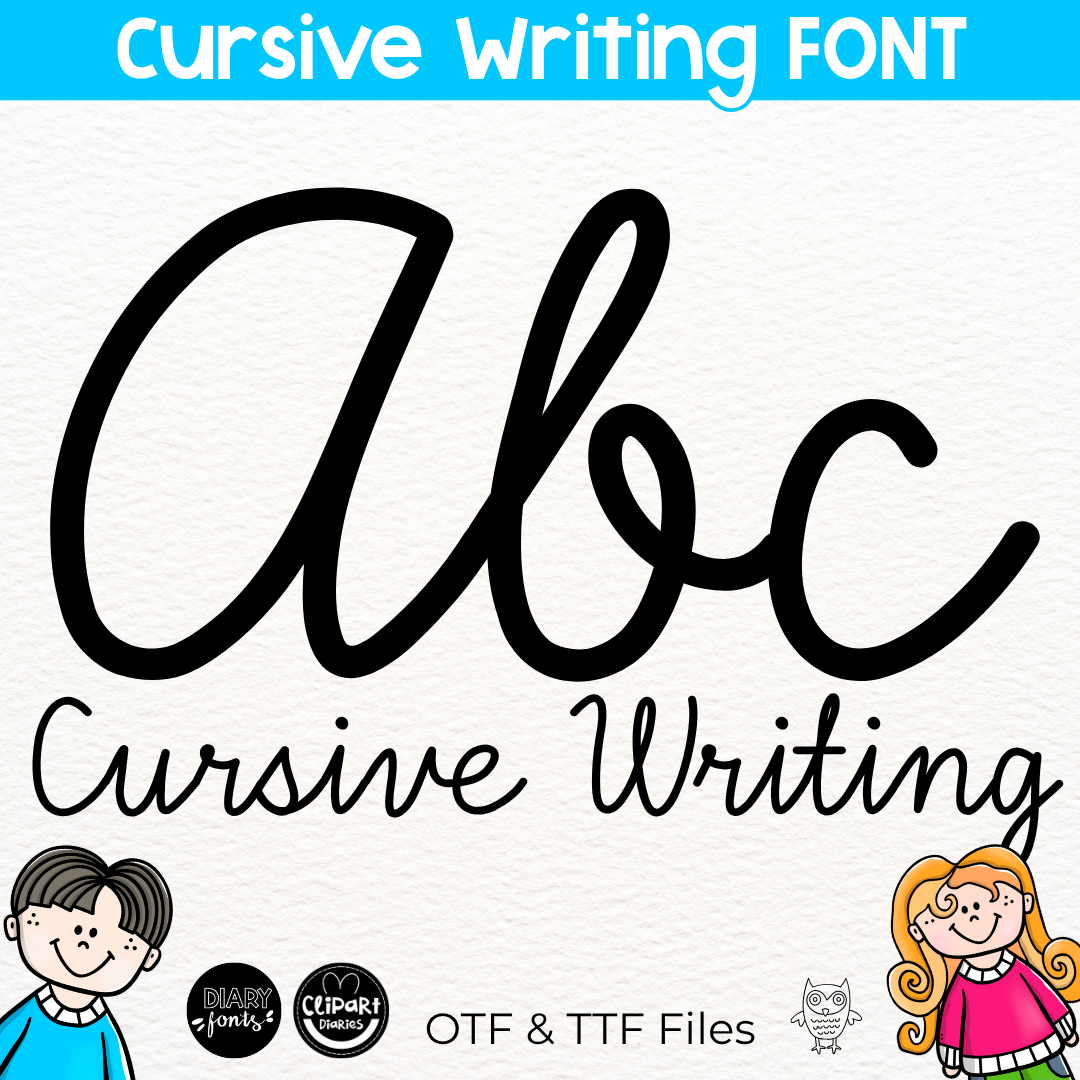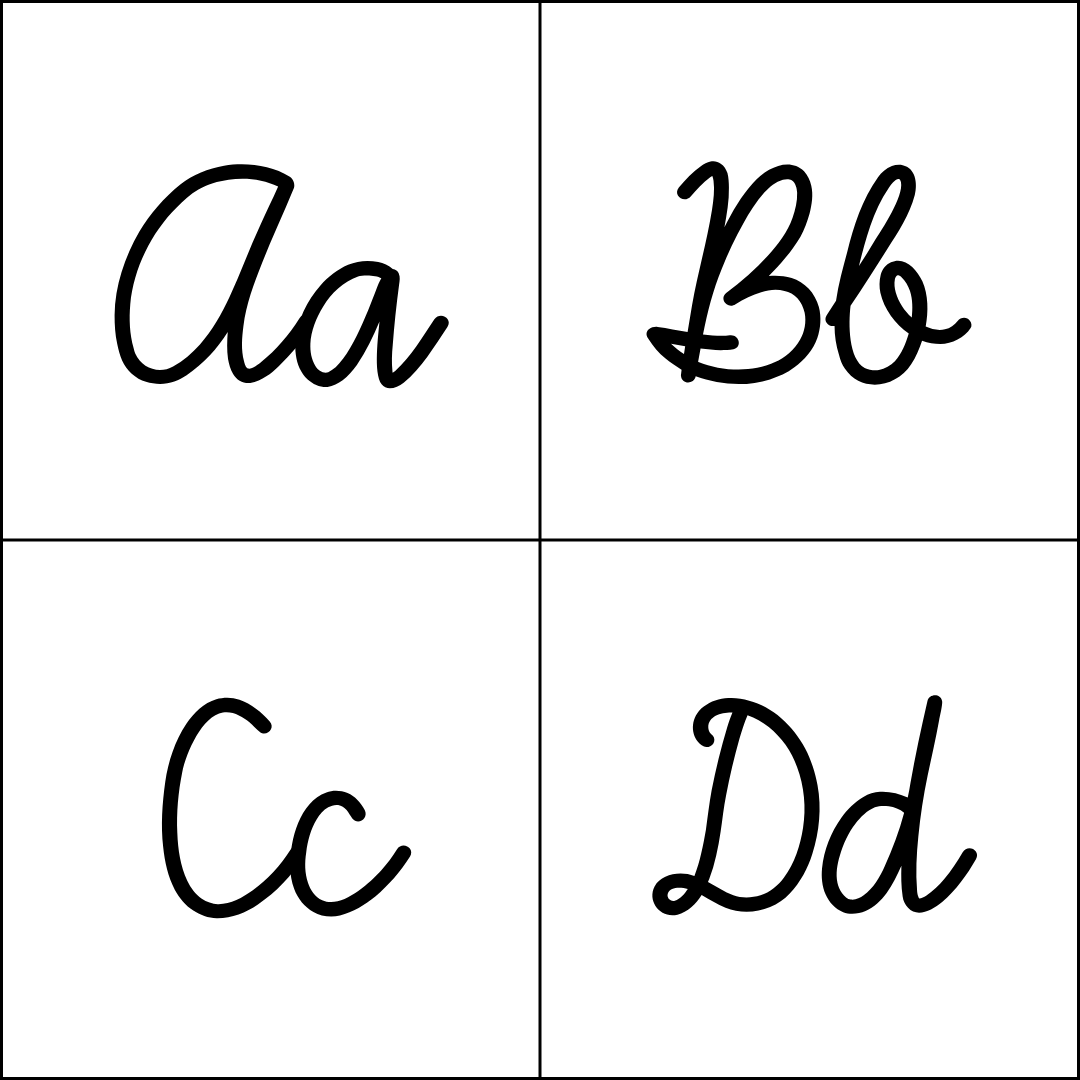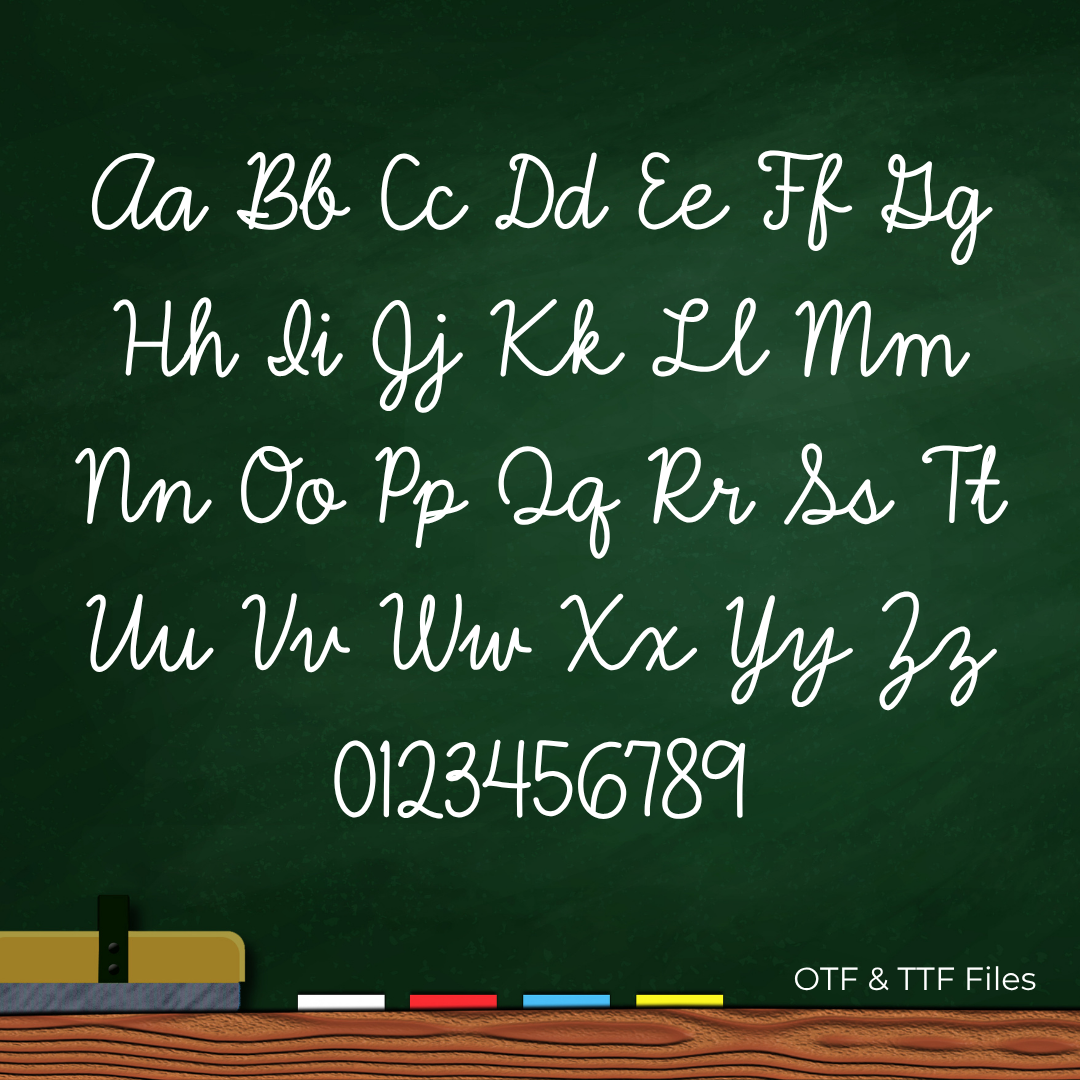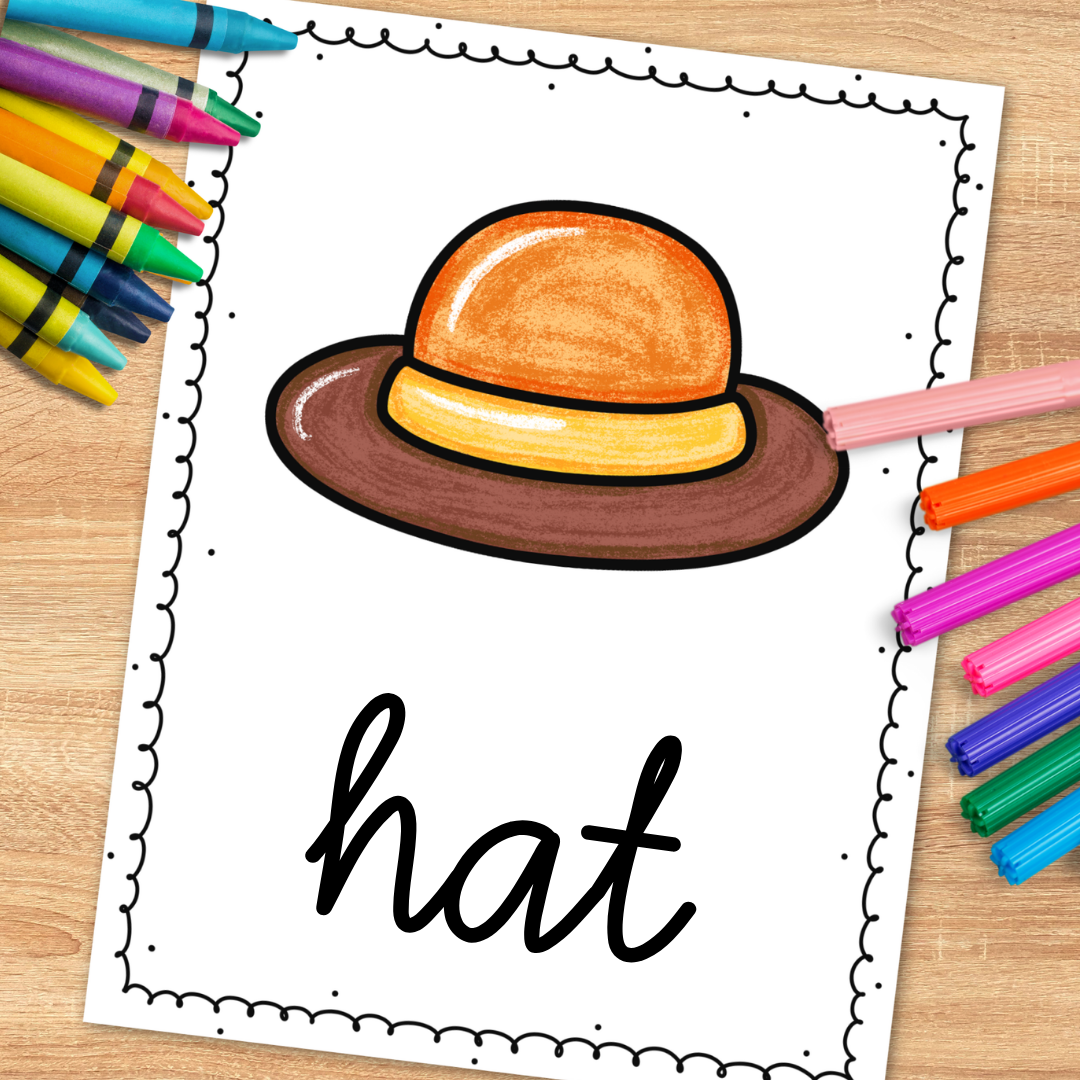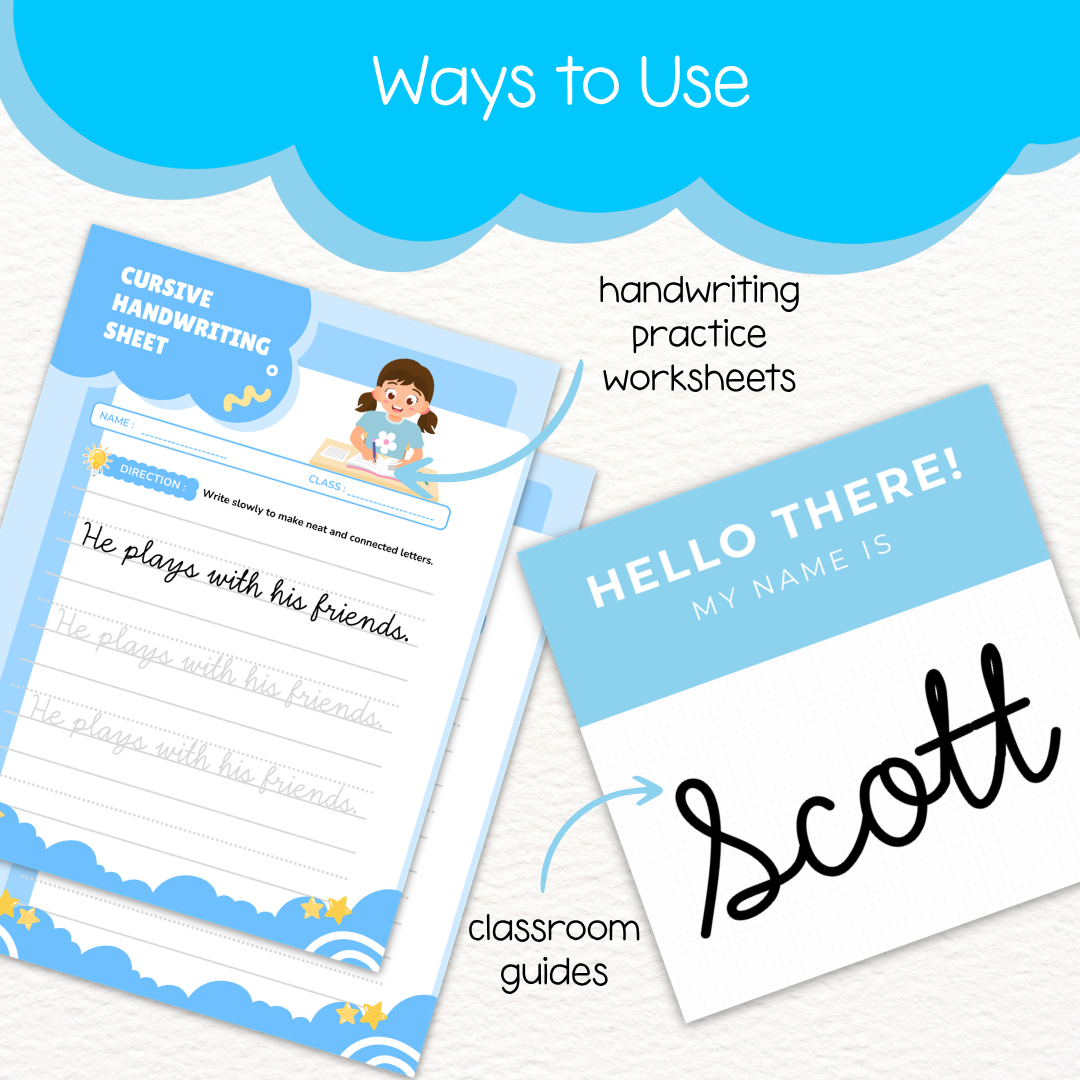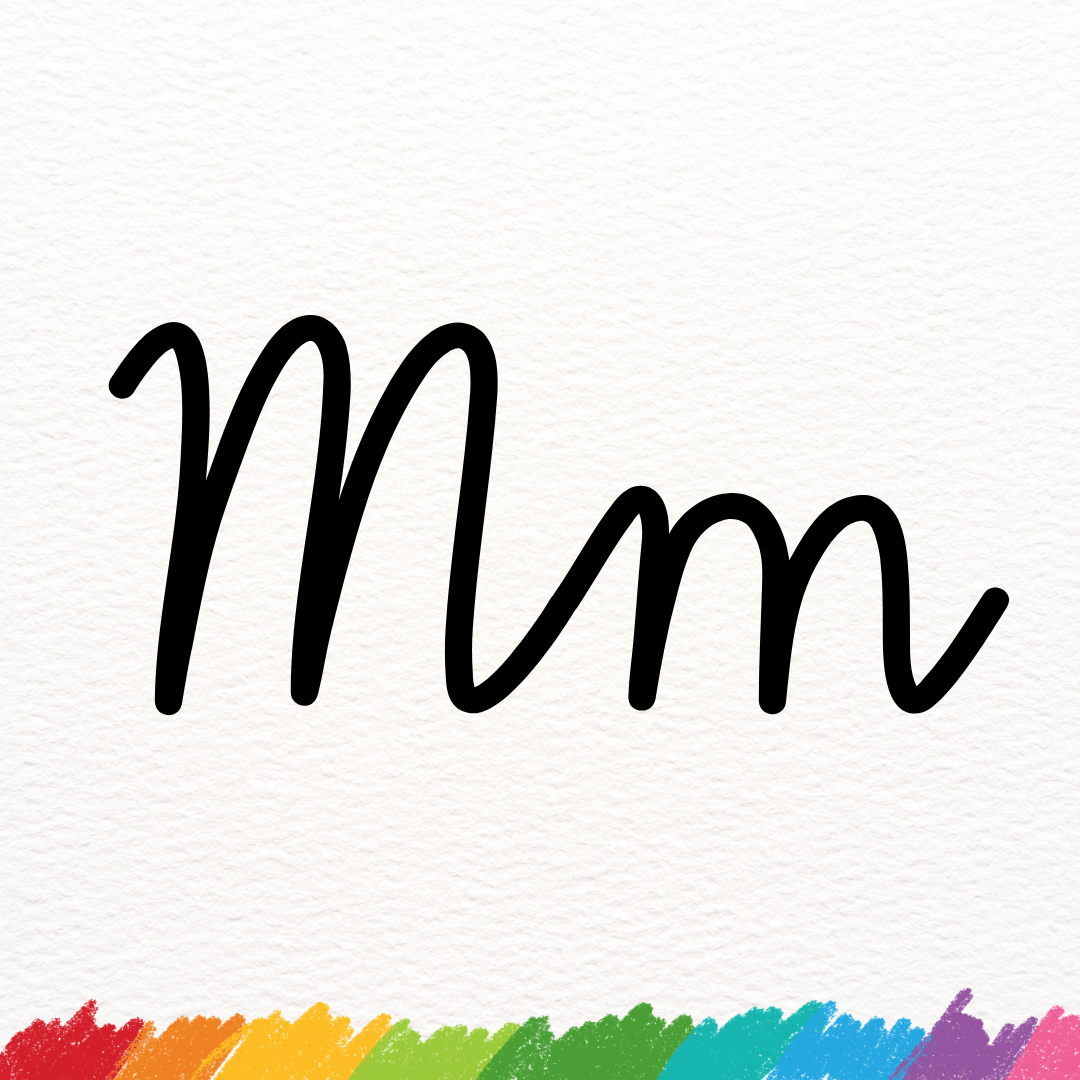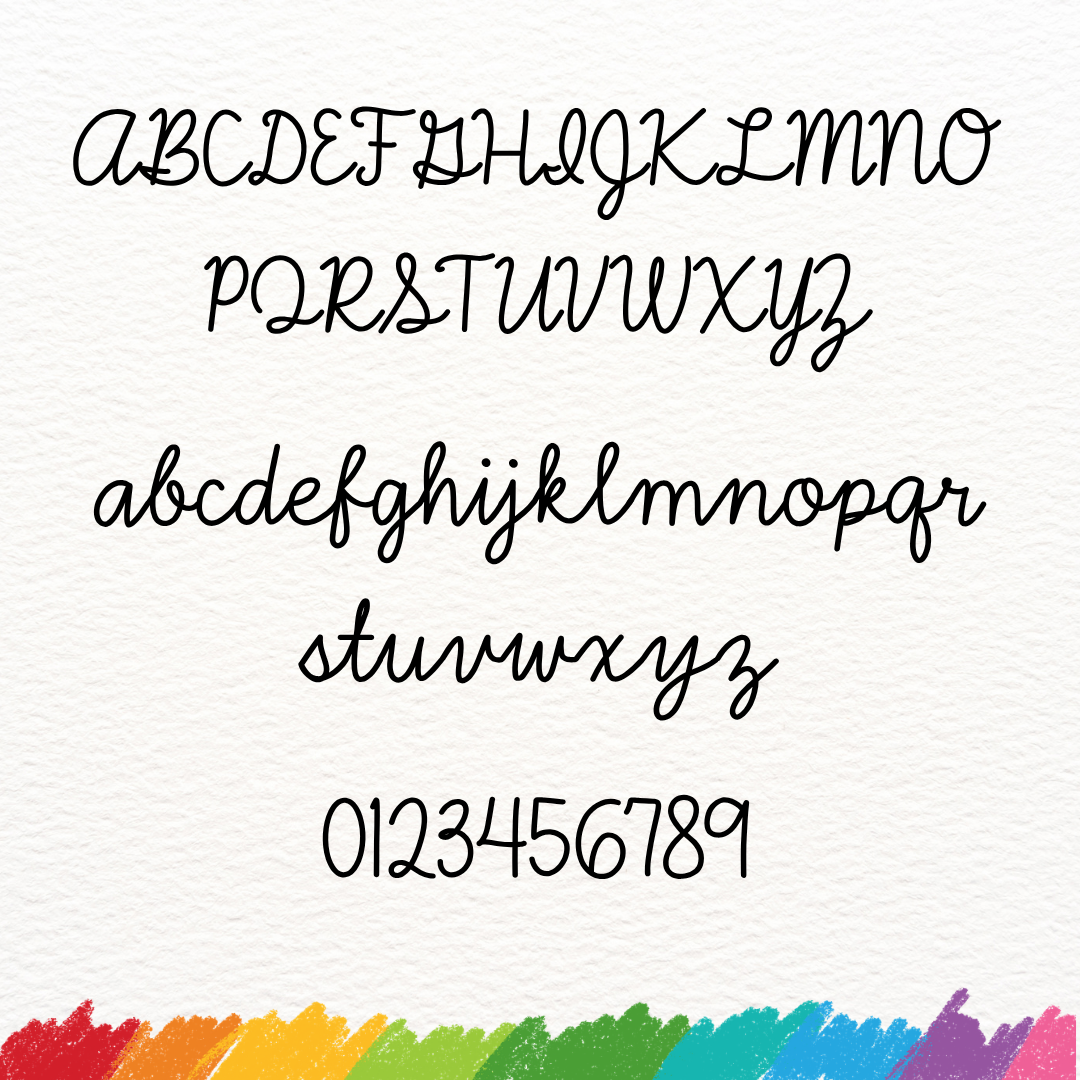
Cursive Writing Font for Handwriting Practice, Diary Cursive, Script Font for Personal and Commercial Use
This cursive handwriting font is perfect for tracing and fine motor activities to practice writing cursive letters. You can use it to create handwriting worksheets, tracing activities, name tags, alphabet posters, classroom décor, and other resources. The font is suitable for both personal and commercial projects.